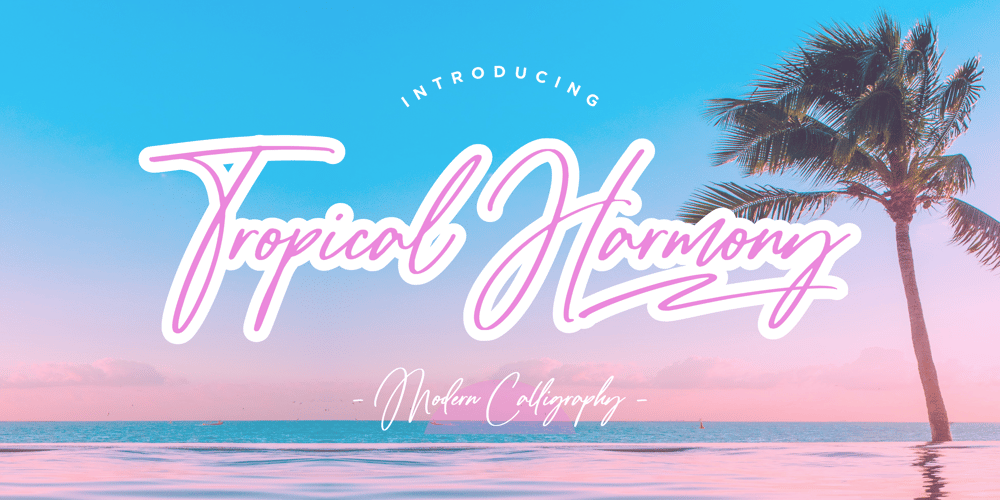
Tropical Harmony Font Family was designed by Restu Angga and published by Balpirick. Tropical Harmony contains 1 styles and family package options. Tropical Harmony is a Modern Calligraphy Font.Tropical Harmony Script is an enchanting handwritten font. This versatile script font has a wide spectrum of applications ranging from greeting cards to headlines and is guaranteed to add a romantic feel to your next project.Tropical Harmony also multilingual support.Enjoy the font, feel free to comment or feedback, send me PM or email.Thank you!